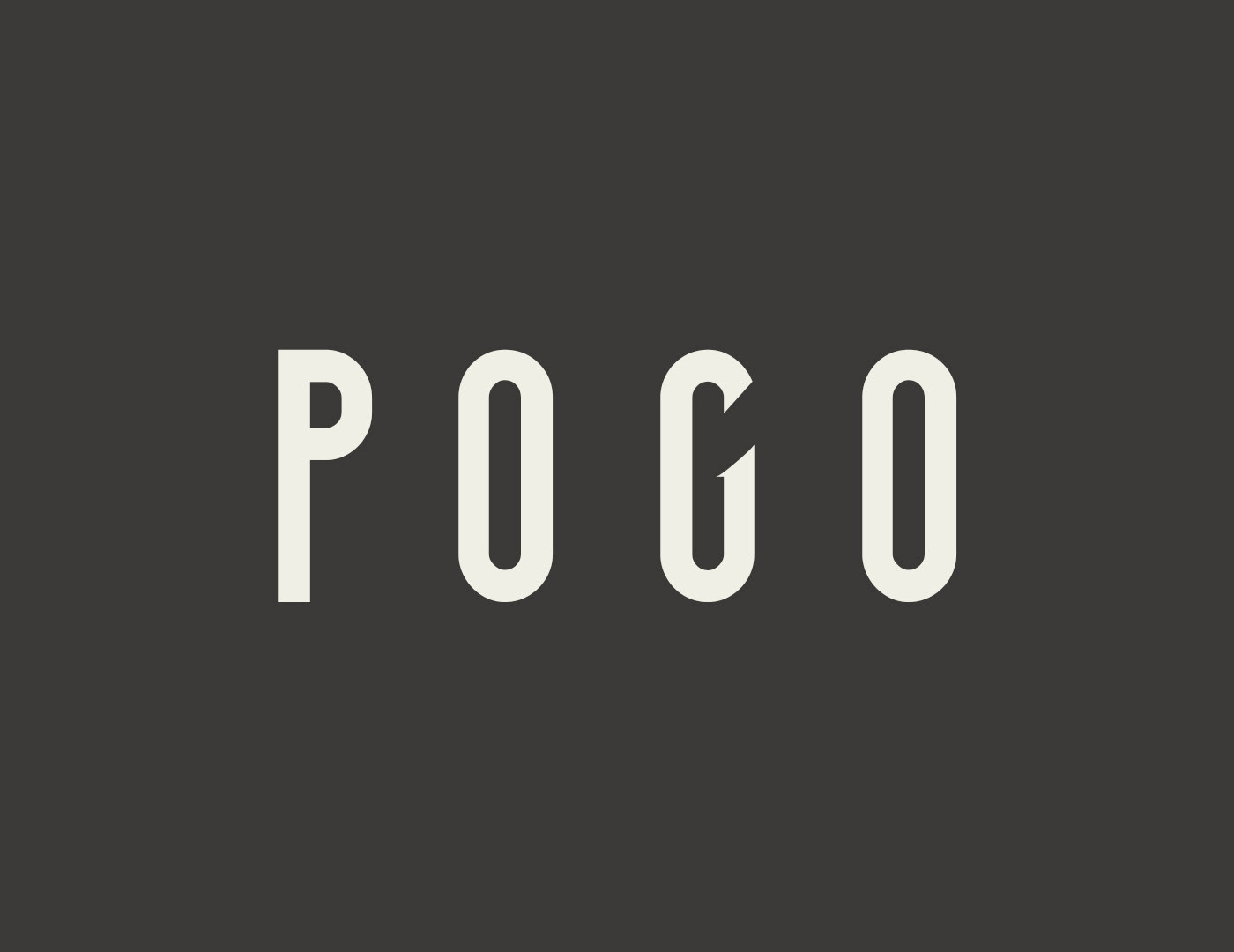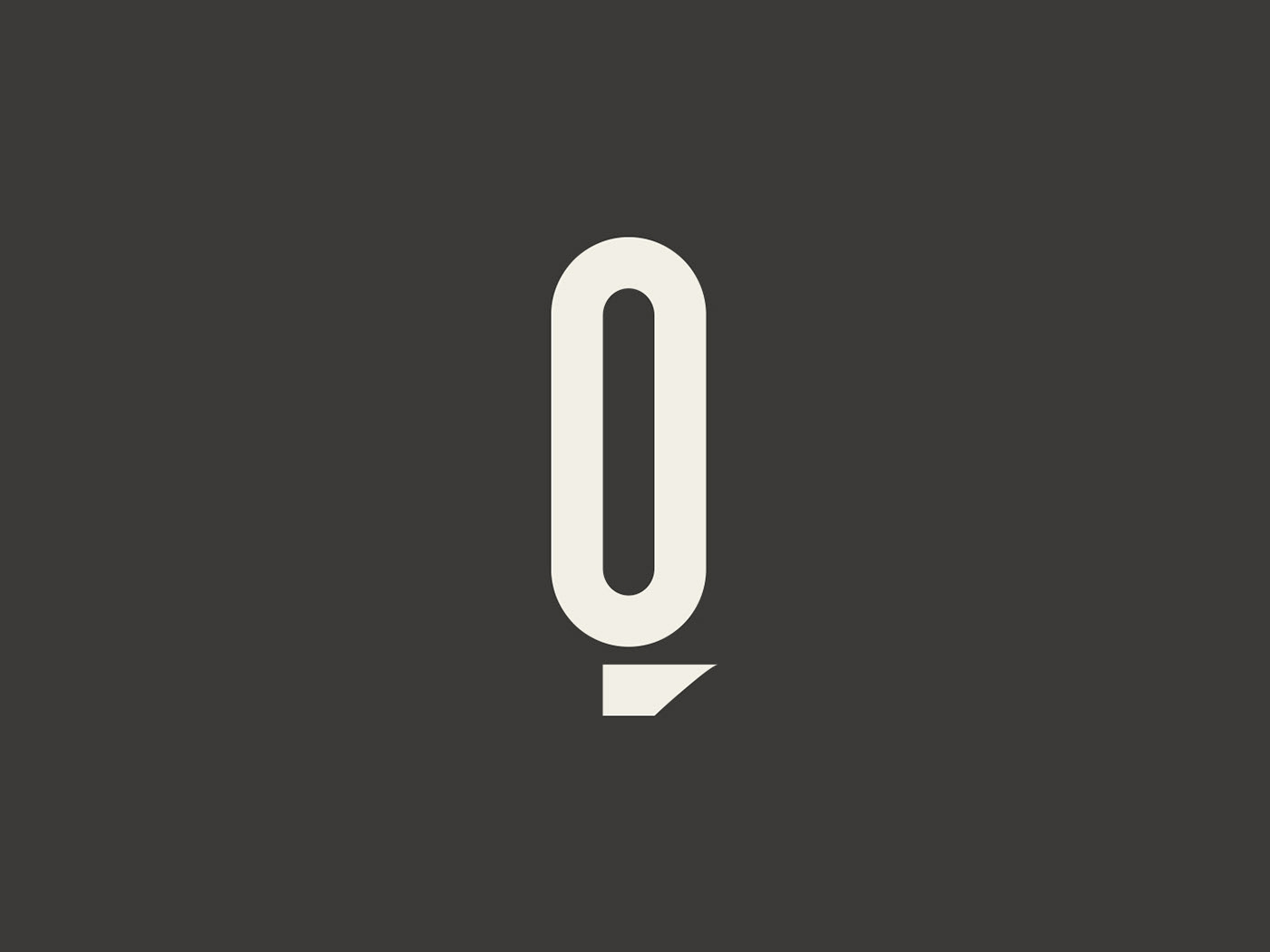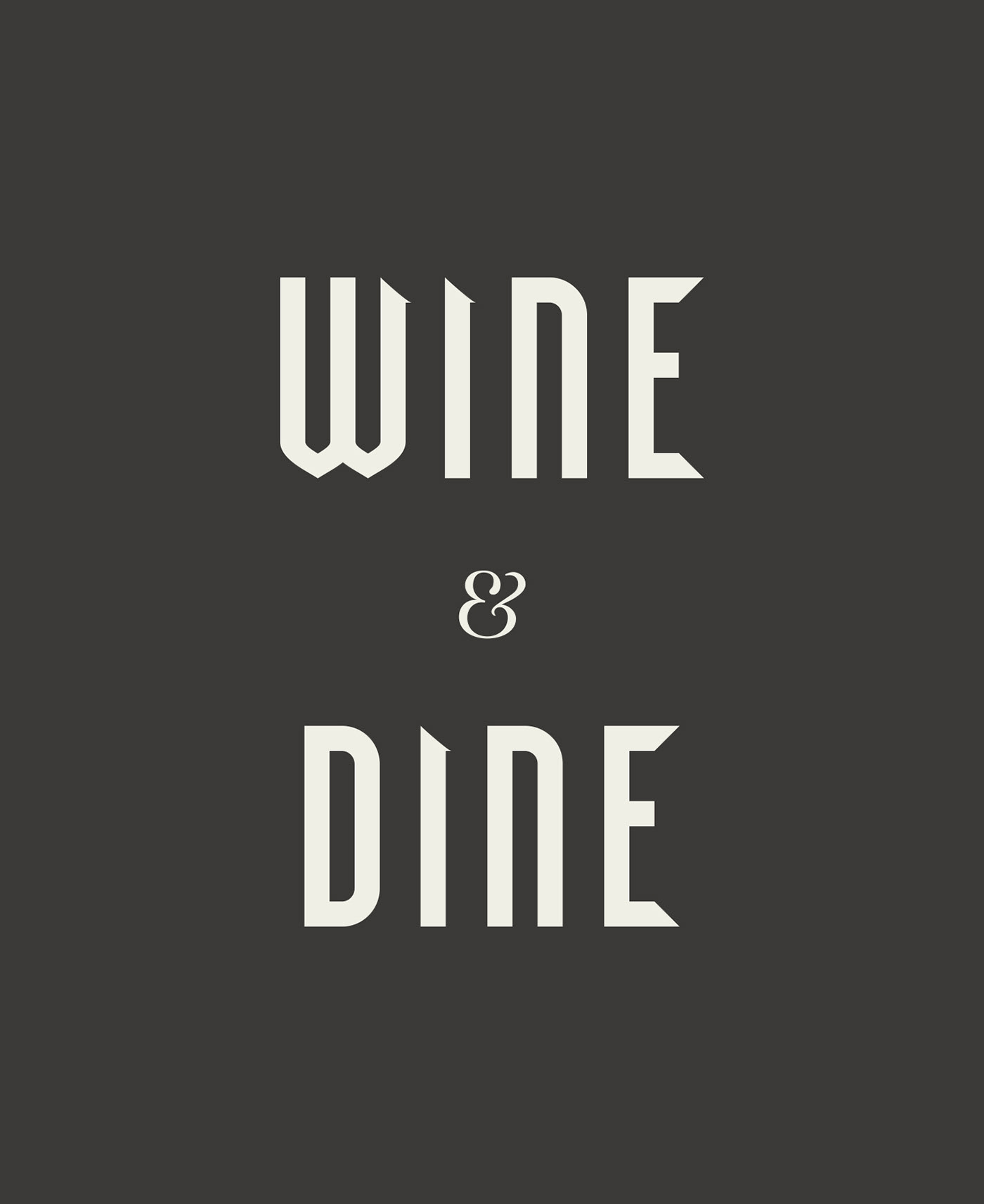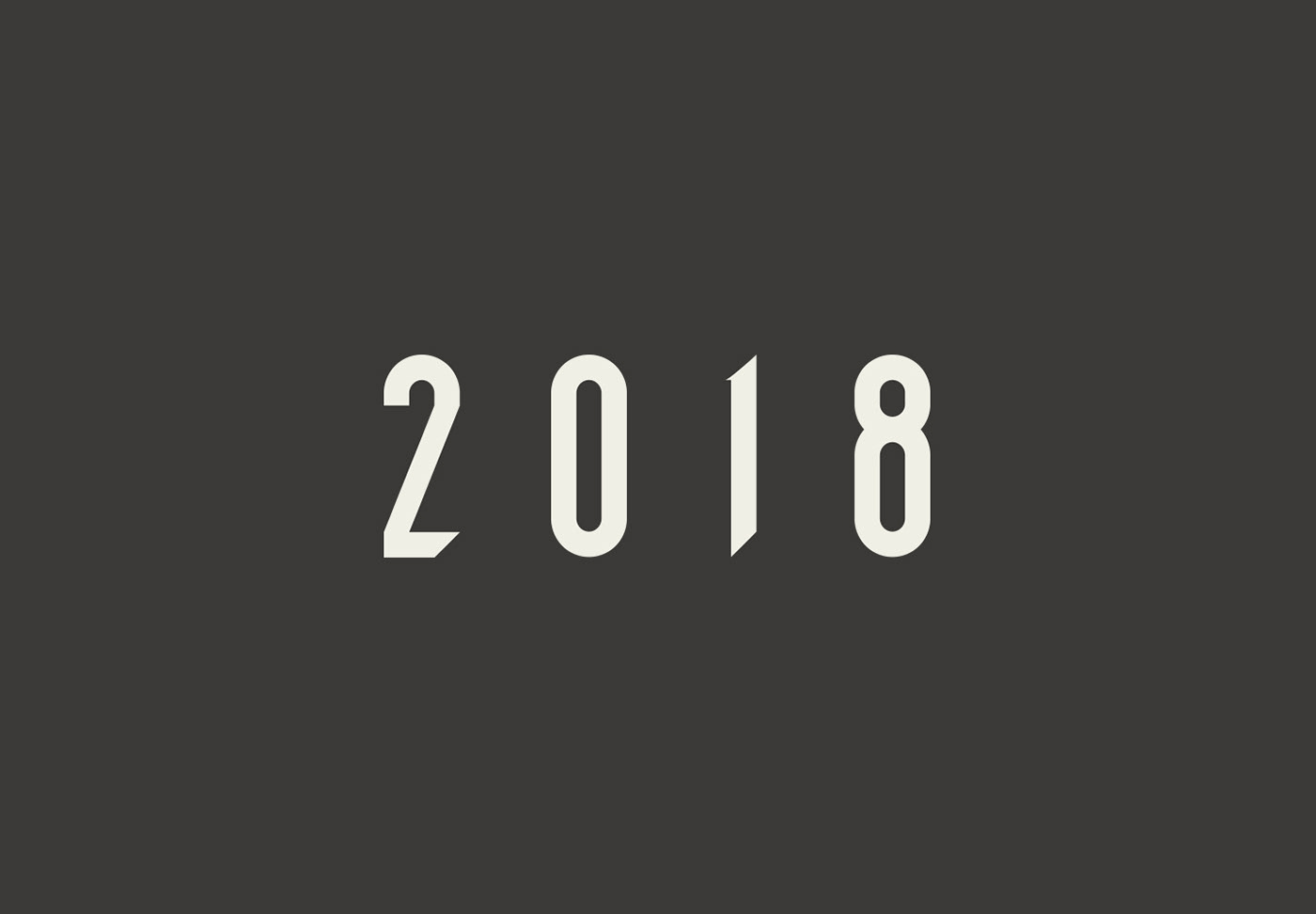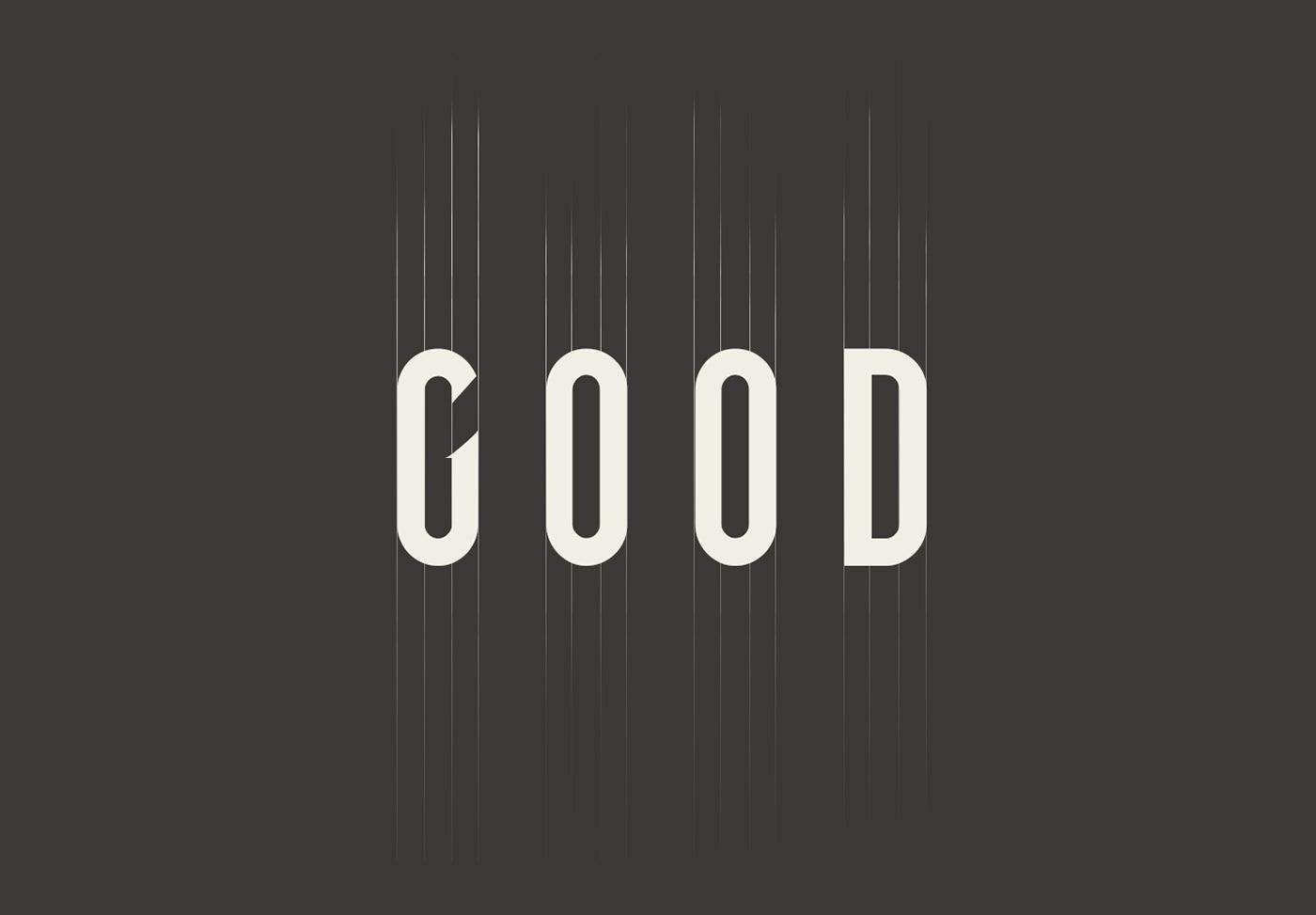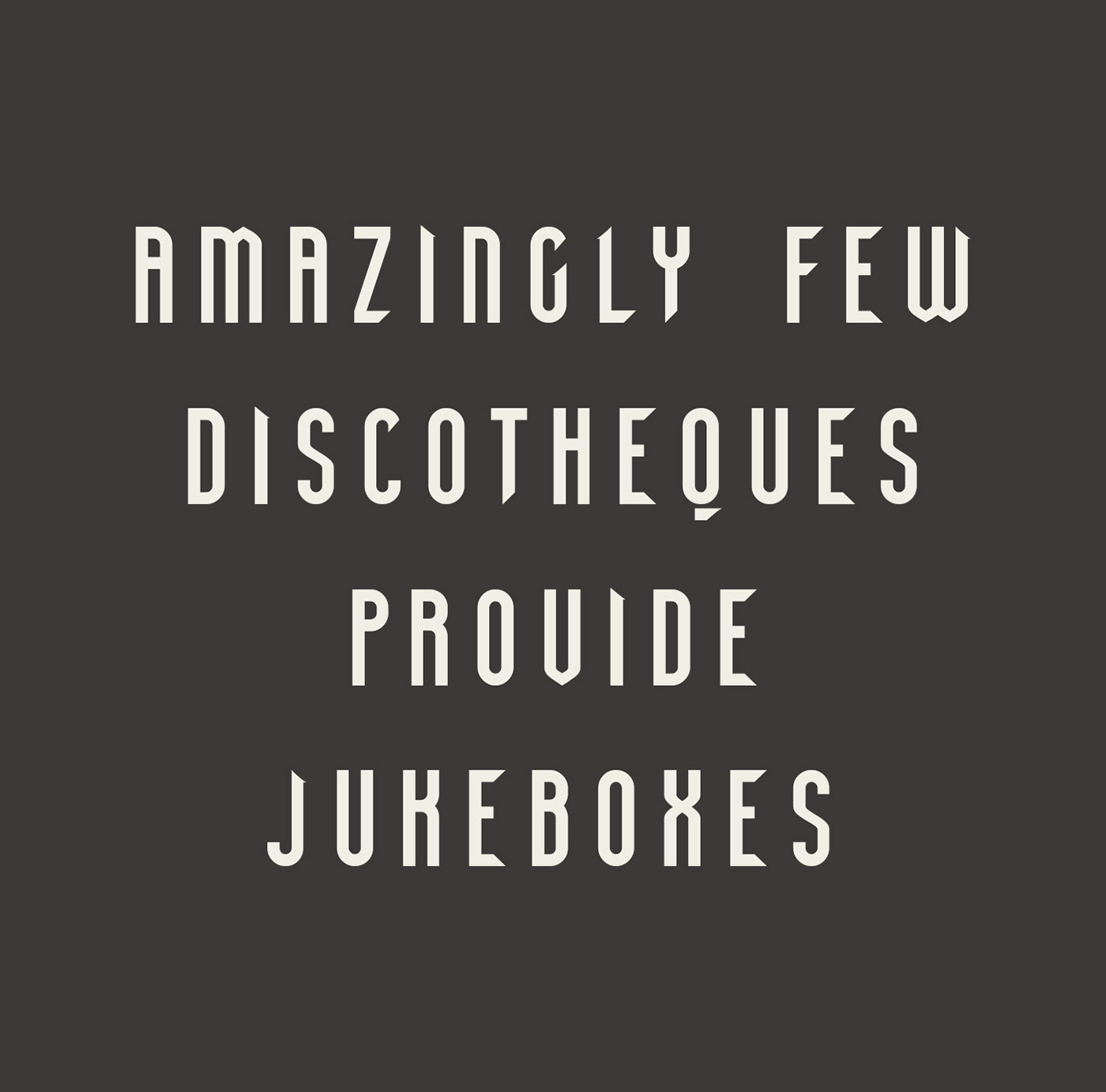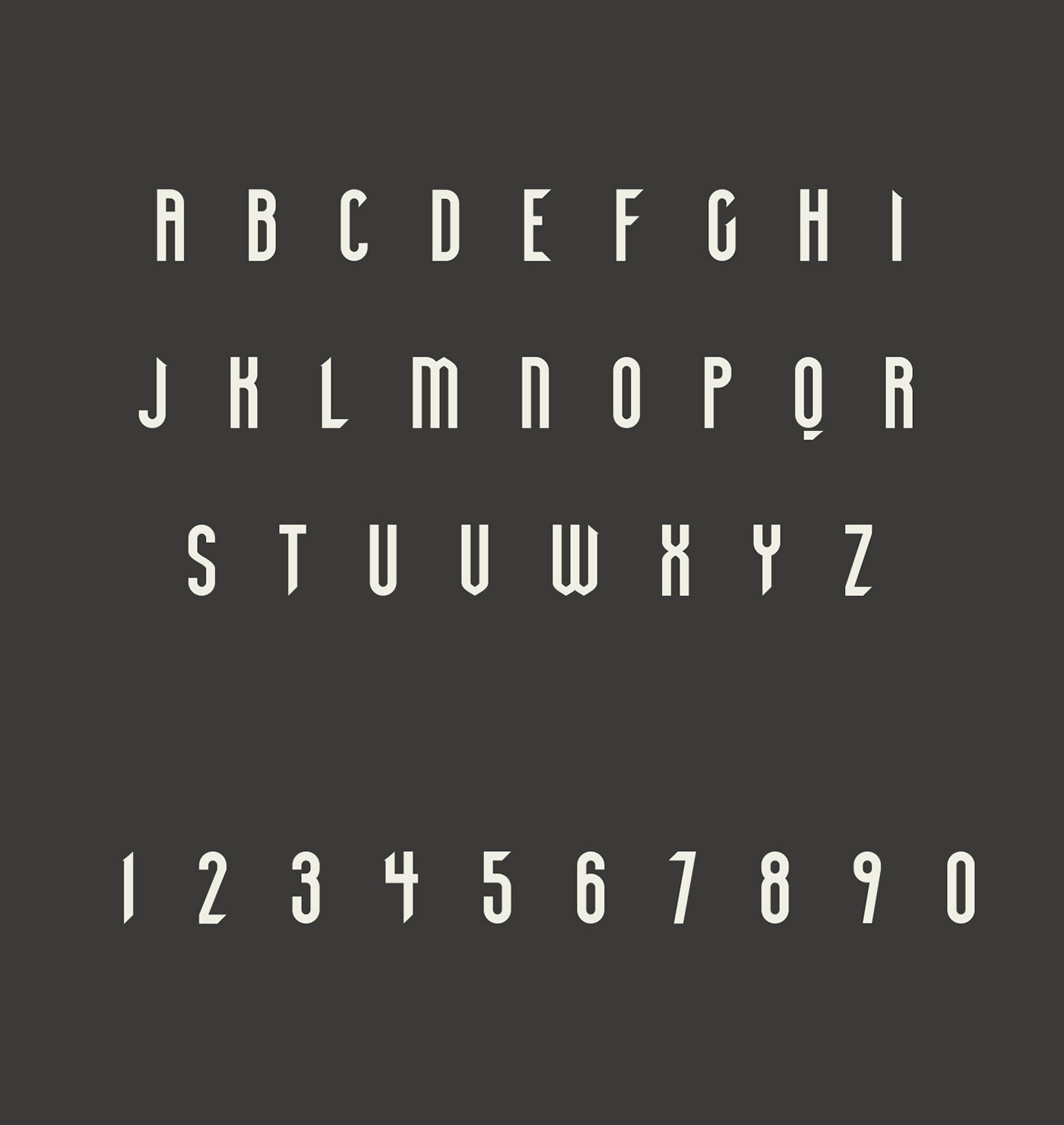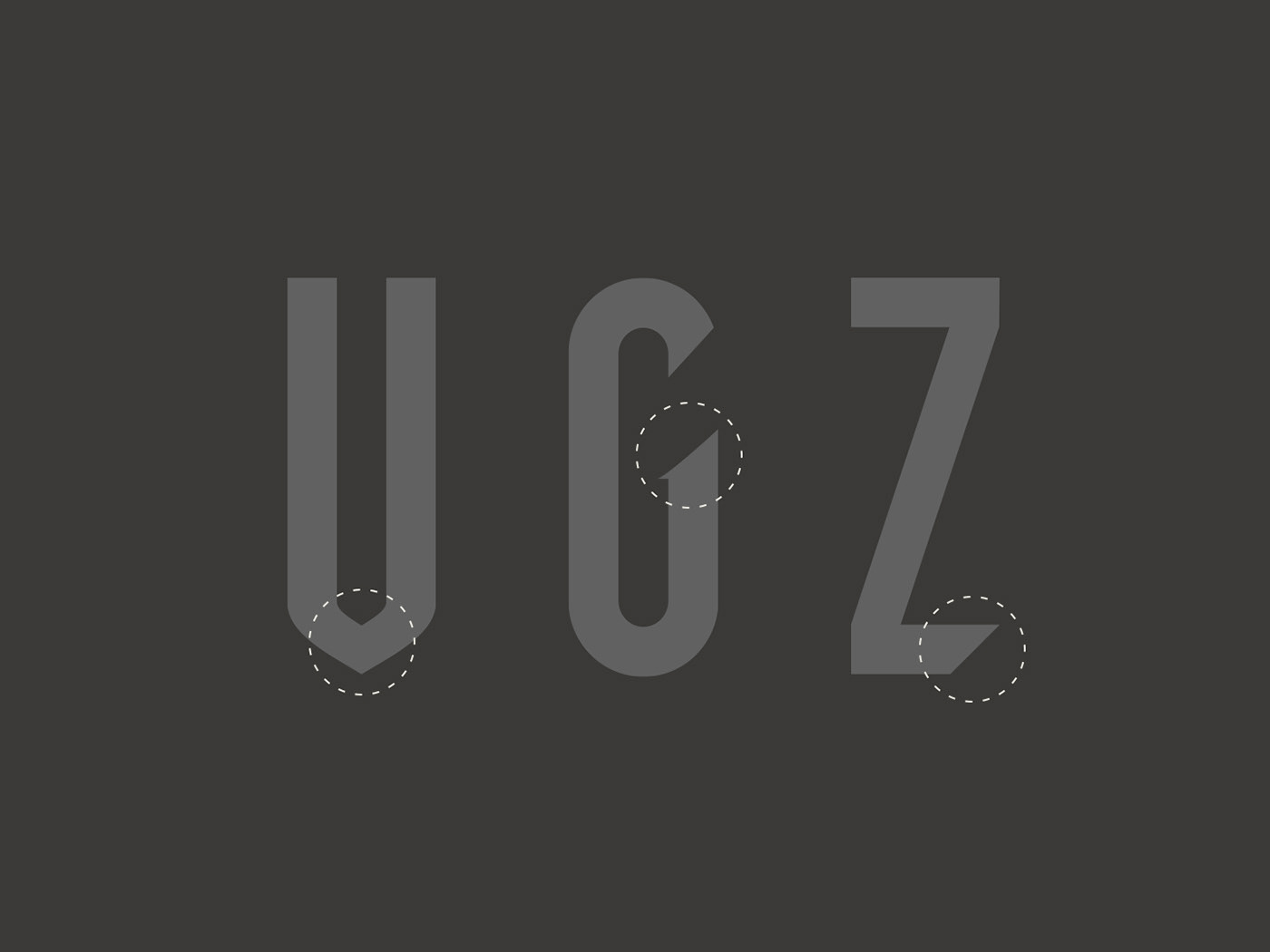
Is your typeface toolbox bugging you daily for some new friends? Not to worry! Pogo Font by Erlend Storaker is spot-on perfect for making some noise on everything from posters to book covers. No matter your project, Pogo is the perfect font for posters, T-shirts, presentations and more!